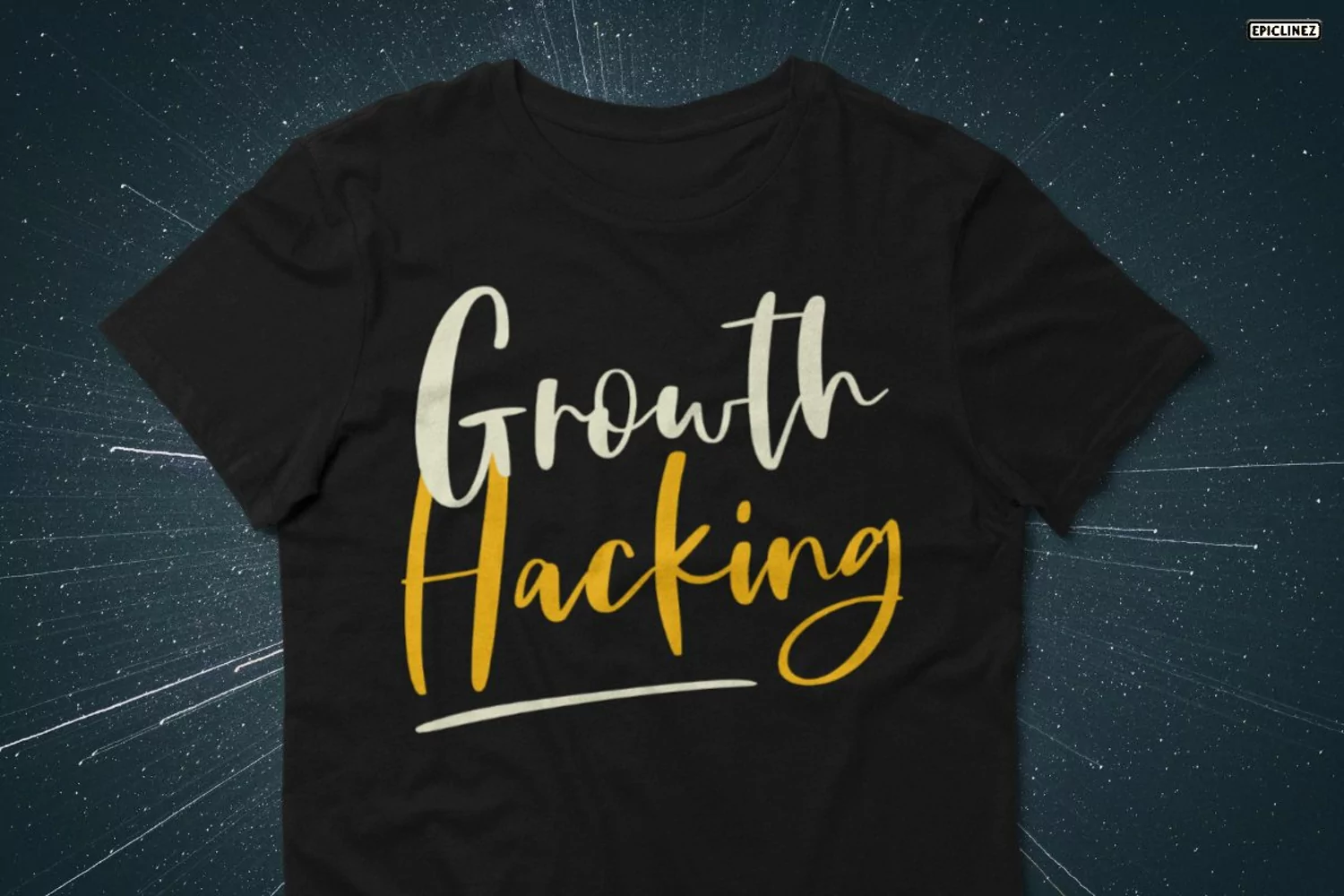
Thug Rose is a stylish handwritten script font. This smooth script font is suitable for logos, apparel, posters, headlines, brandings, etc. This font has Open Type features such as alternate letters, ligatures, and swashes. This font is also multilingual and PUA encoded. Use it for any design projects that require a charming appearance!